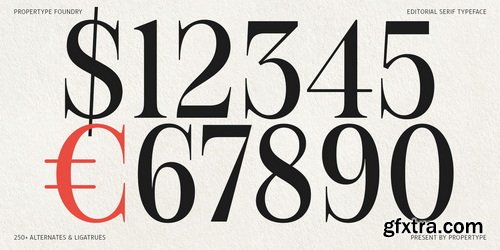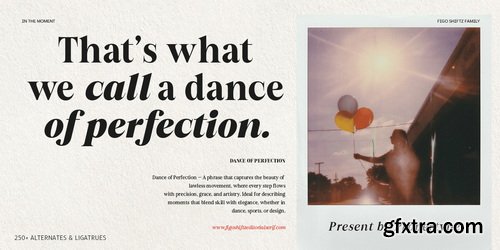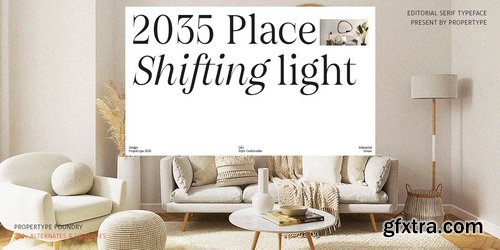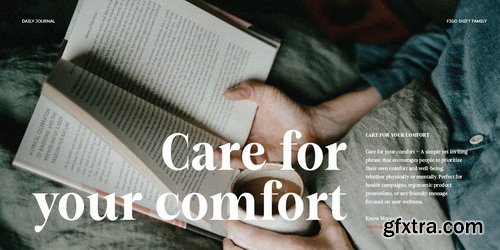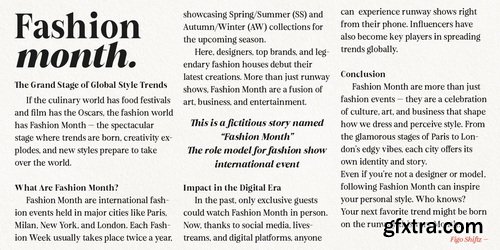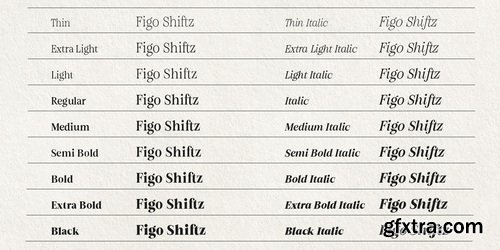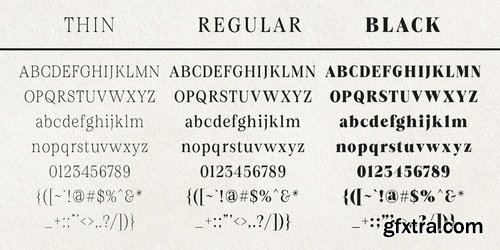
- Figo Shiftz is a distinguished editorial serif typeface that marries the timeless charm of traditional typography with a sleek, contemporary flair. Designed to embody both beauty and functionality, this versatile font features alternates and ligatures, allowing for limitless creative expression—from striking headlines to perfectly crafted body text. With an impressive range of 9 weights, from Thin to Black, complemented by elegant calligraphic italics, Figo Shiftz empowers you to master your typographic voice. Its graceful serifs, meticulously calibrated contrast, and sophisticated curves make it an exceptional choice for editorial and magazine layouts, fashion and luxury branding, packaging design, visual identity projects, typographic posters, and high-end promotional materials. Available as a variable font, Figo Shiftz perfectly balances classical elegance with modern precision, delivering a refined presence in both print and digital formats.